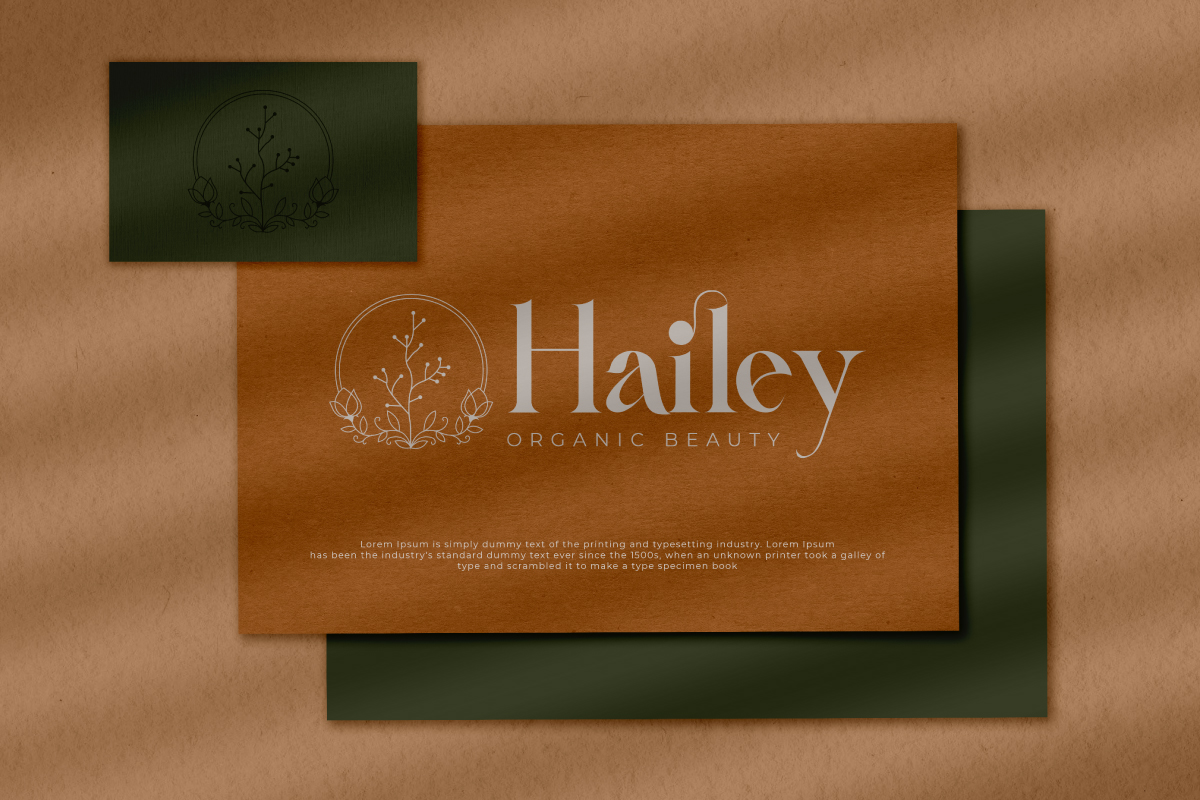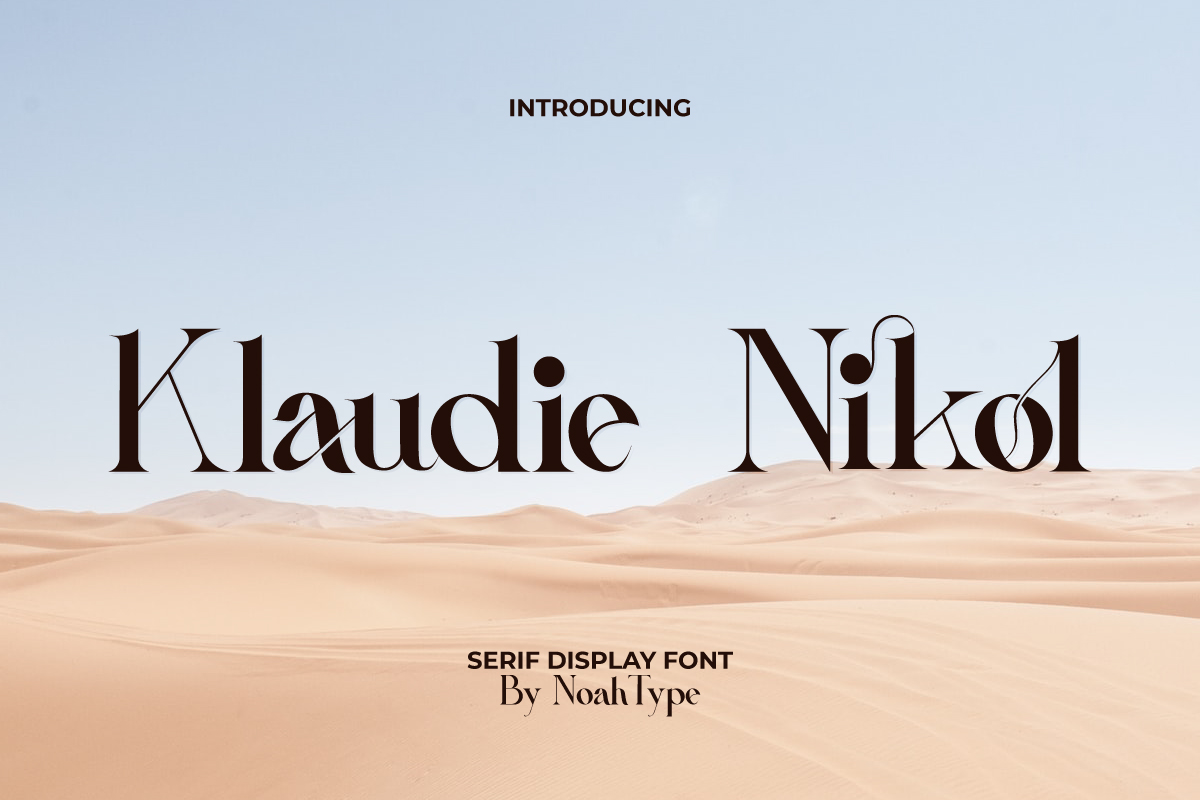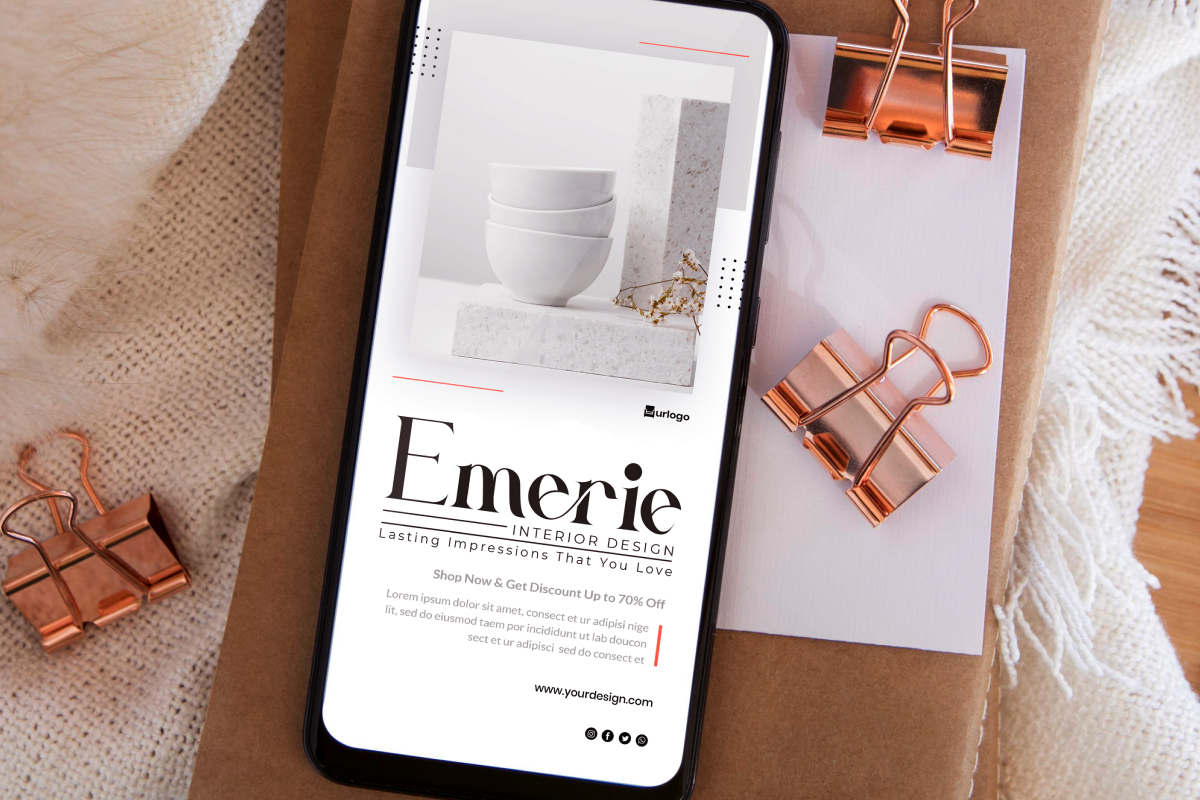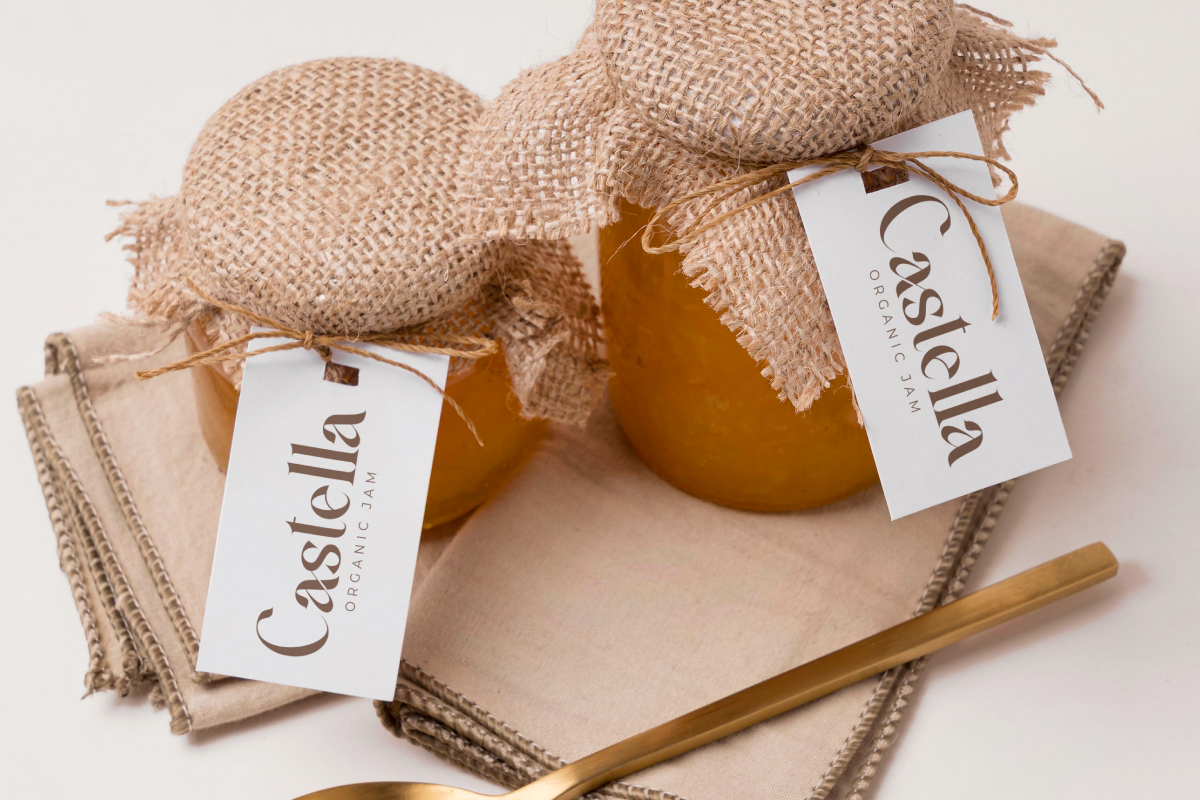
Klaudie Nikol Font
Klaudie Nikol Serif Font
This is a beautiful serif display font with elegant style. This font has stunning lines character while still easily to read. This awesome display font would be amazing for any business or industry including: architect, beauty care, craft, e-commerce, fashion, homeware, photography, real estate, writer, and many more.
Klaudie Nikol Font includes full set of Uppercase and Lowercase Basic Characters, Numerals and Punctuation. to create a dazzling and stylish look with elegant additions to enhance your extraordinary projects. Klaudie Nikol Font would be perfect for any projects including: billboard, branding logo, business card, fashion magazine, invitation, product packaging, quote, signage and many more.